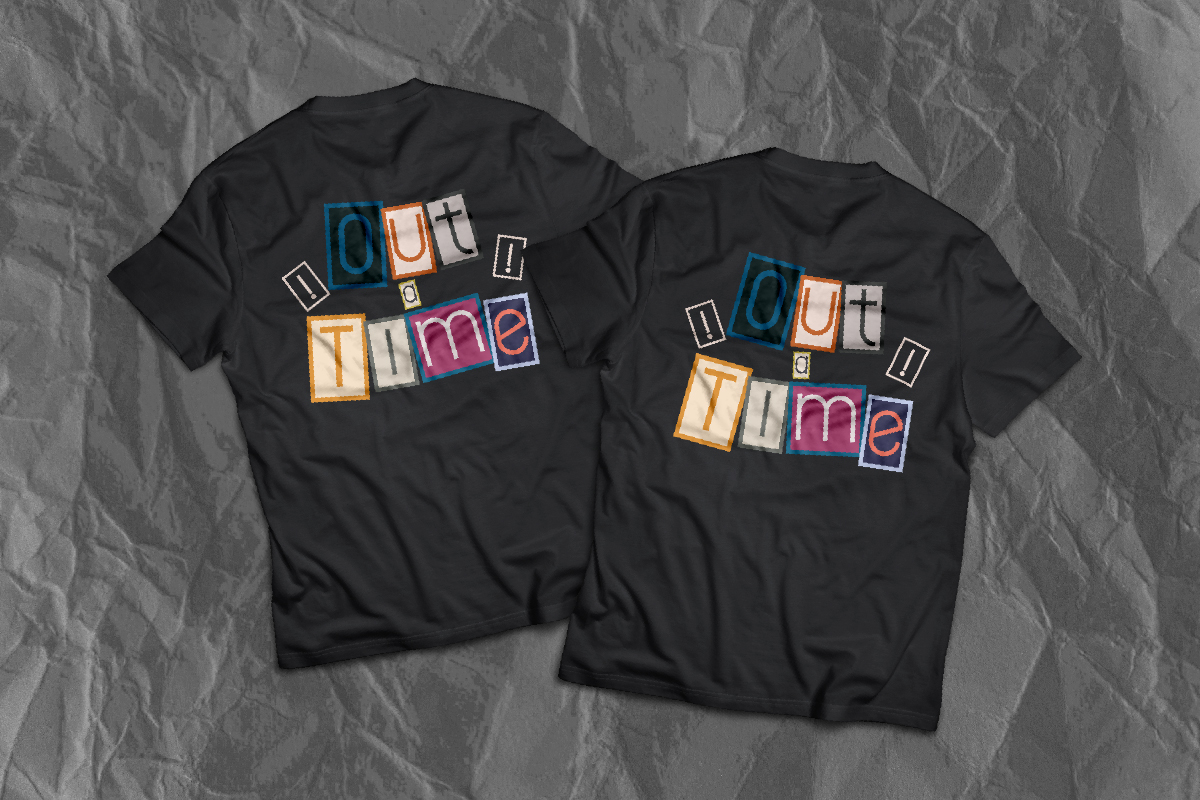
Stick Note Font
Stick Note Display Font
This is a decorative font with clean and unique theme style. The font will be awesome for brands, games, packaging, thank you card, website etc. Stick Note Font will suit many industries and categories related to entertainment, kids, family etc.